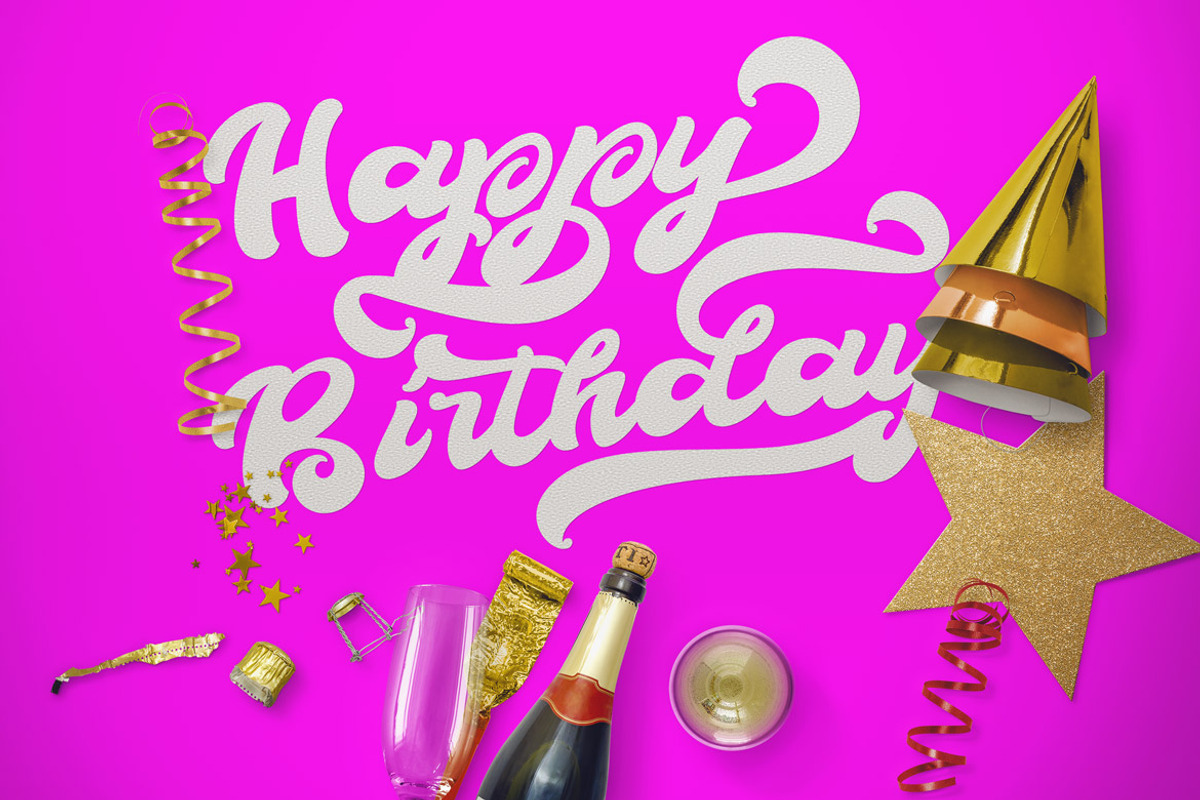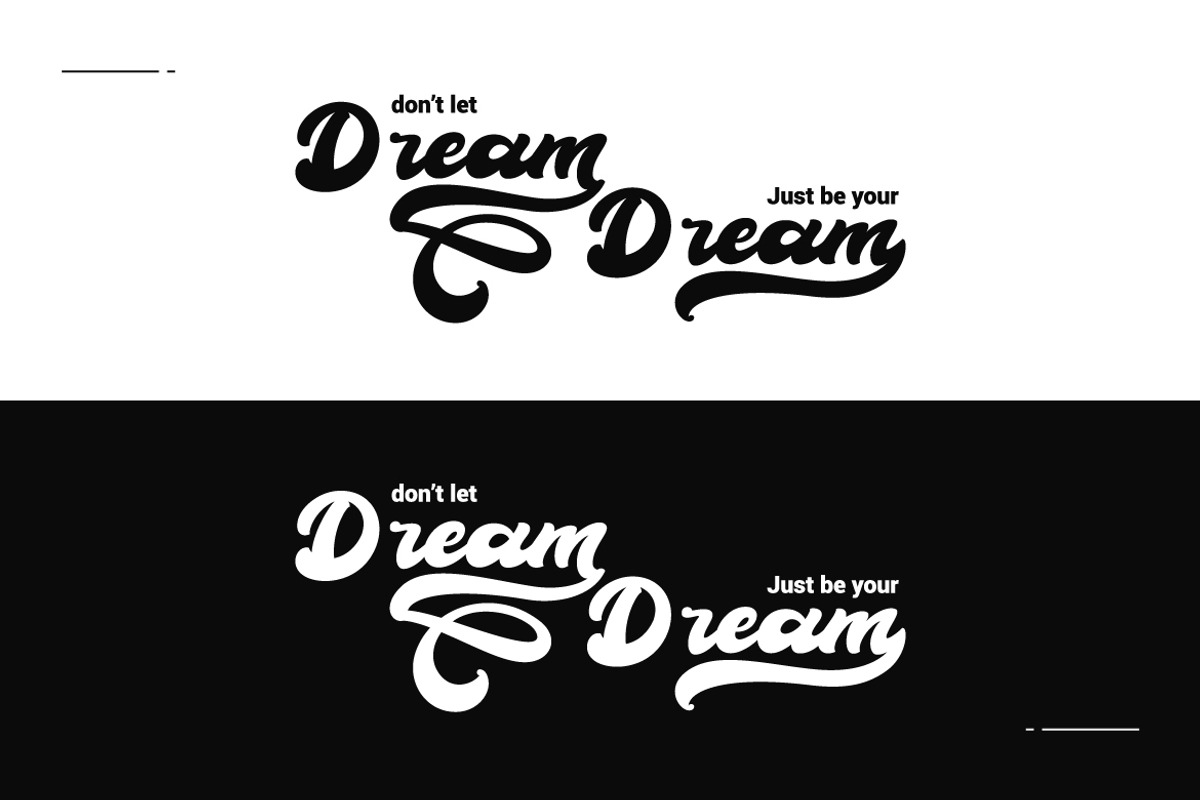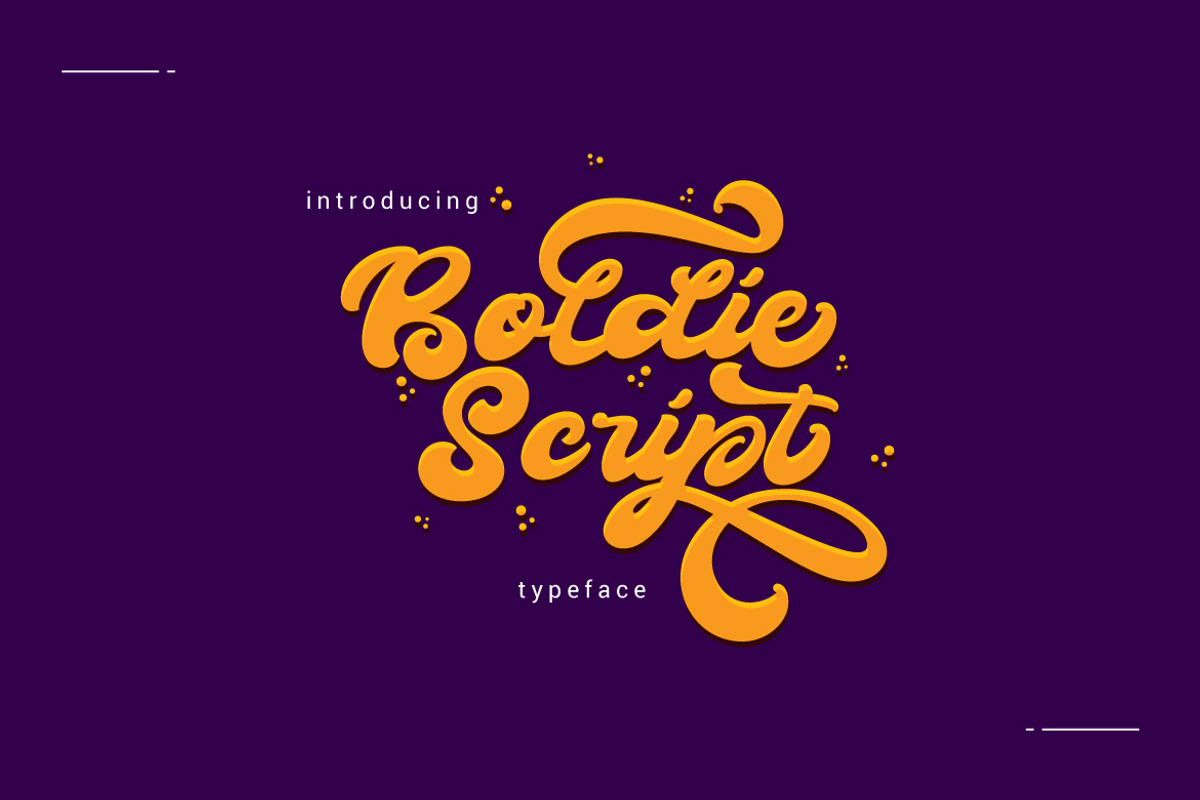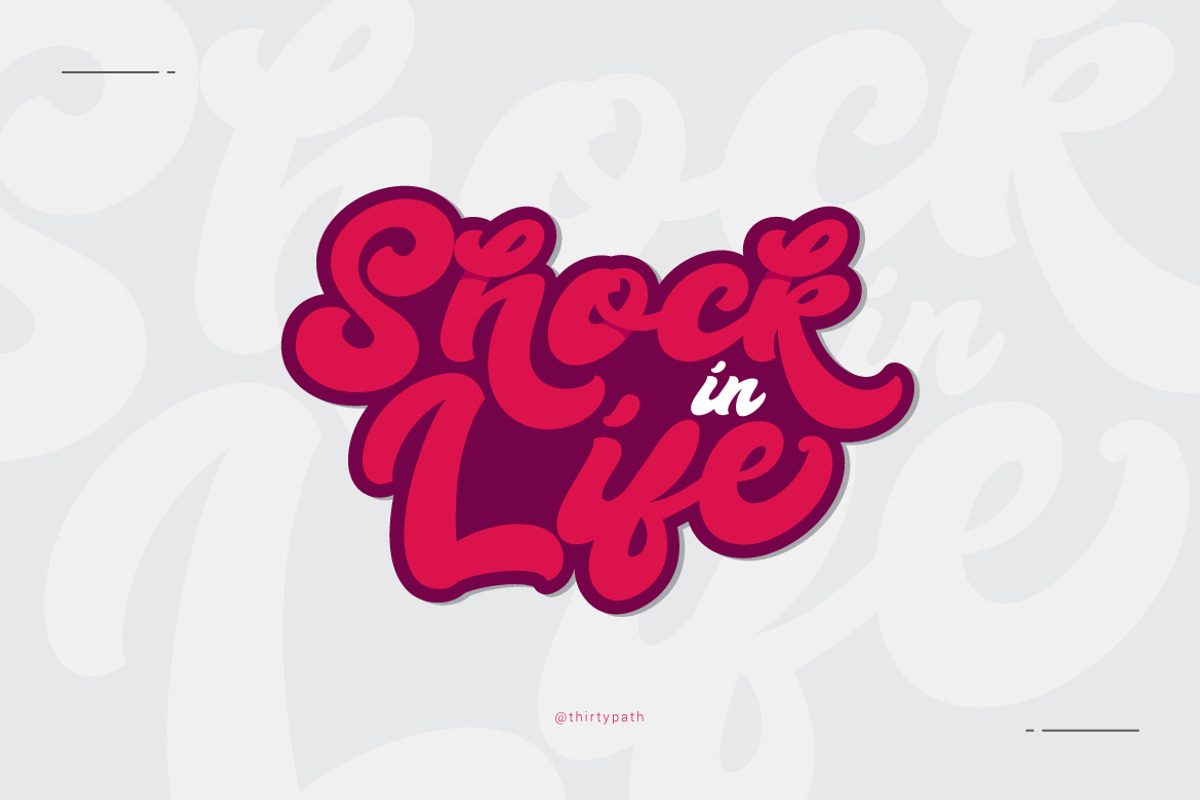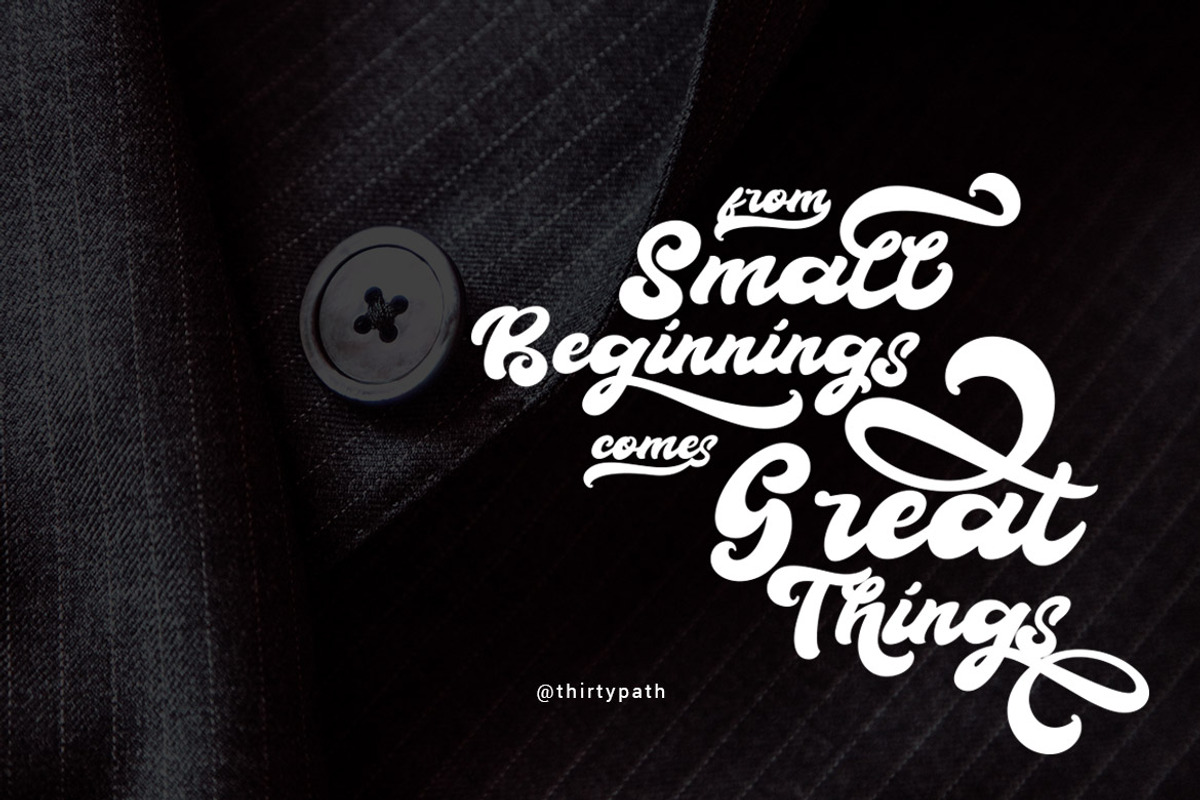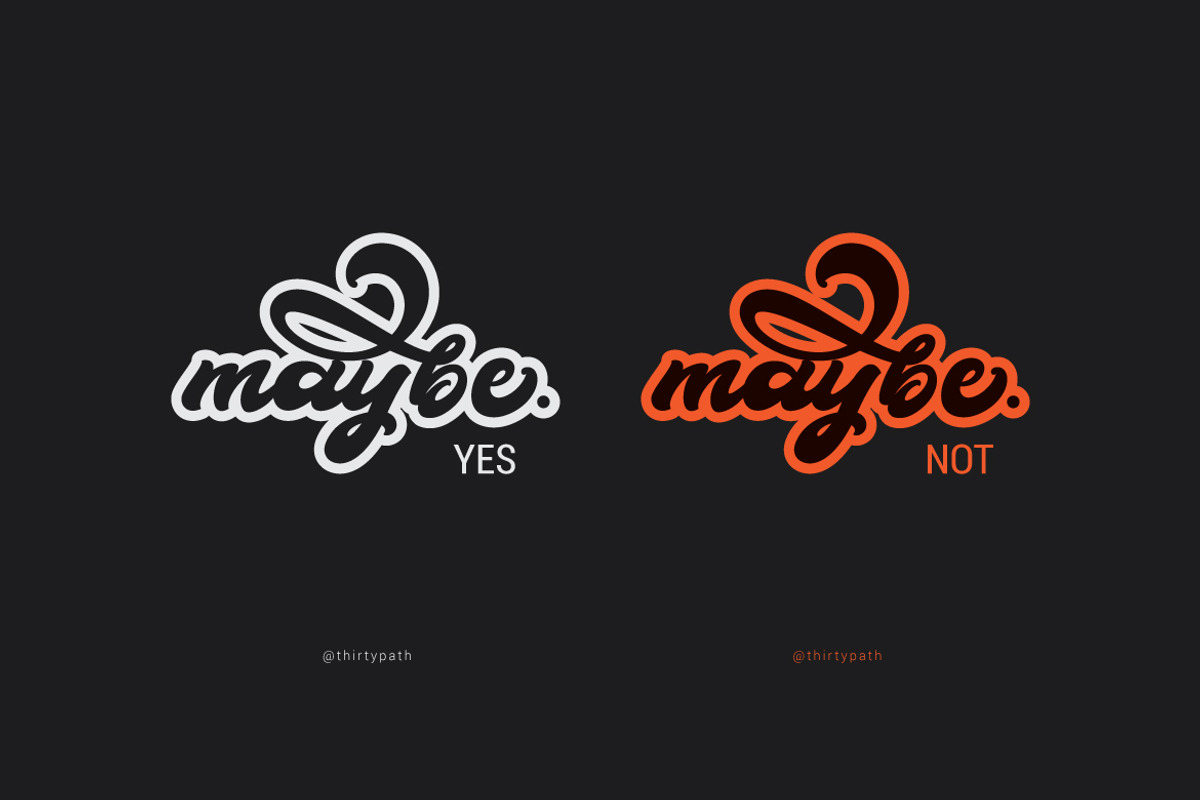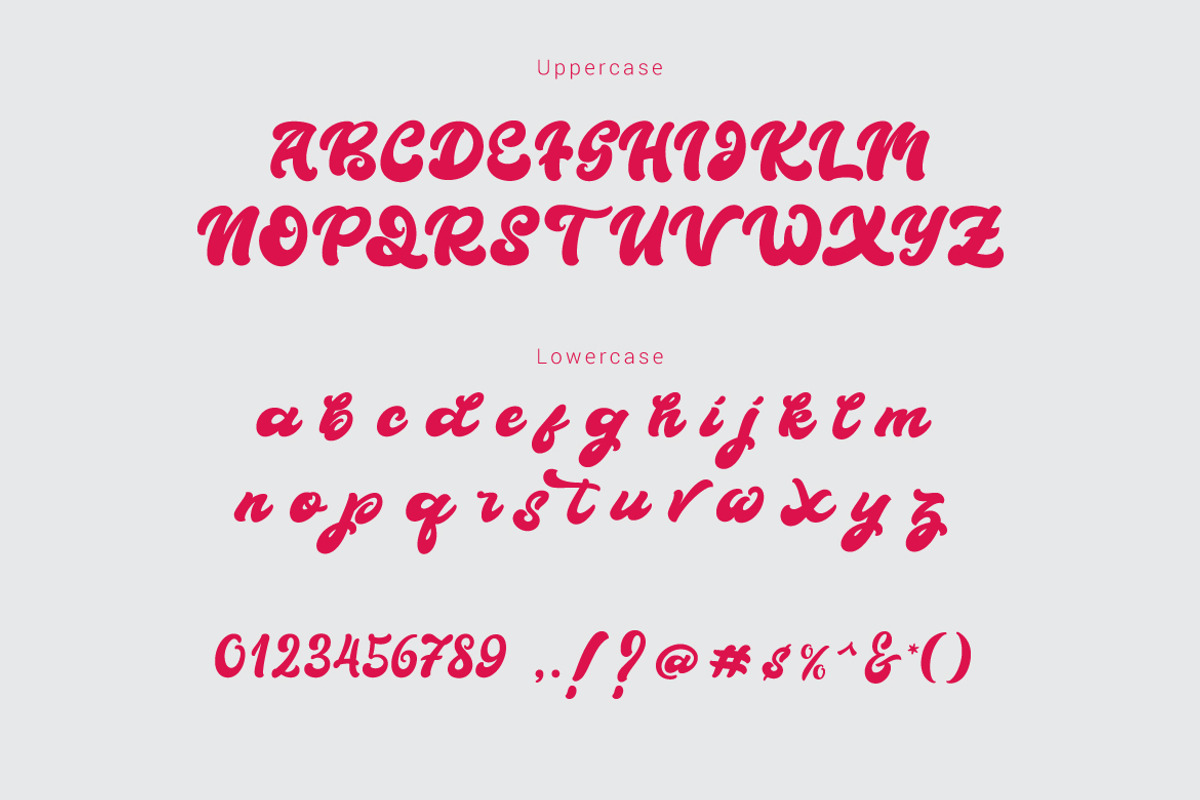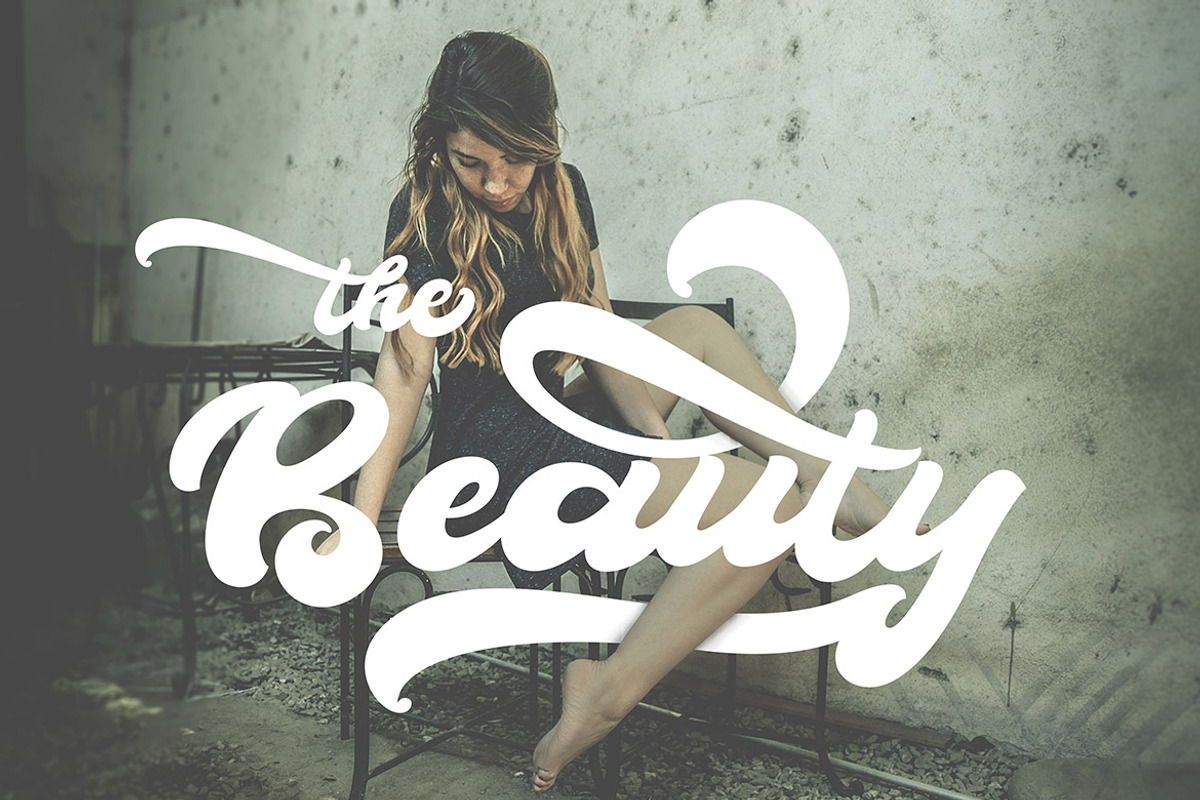
Boldie Script Typeface
Boldie Script Typeface by Thirtypath Studio is a font selected for branding, posters, packaging, typography.
- Uppercase & lowercase
- Stylistic alternatives & swashes
- Initials & finals
- International characters (Multilingual)
- Punctuation & symbols
Why Boldie Script Typeface is worth a look
Boldie Script Typeface by Thirtypath Studio fits naturally into Branding, posters, packaging, typography.